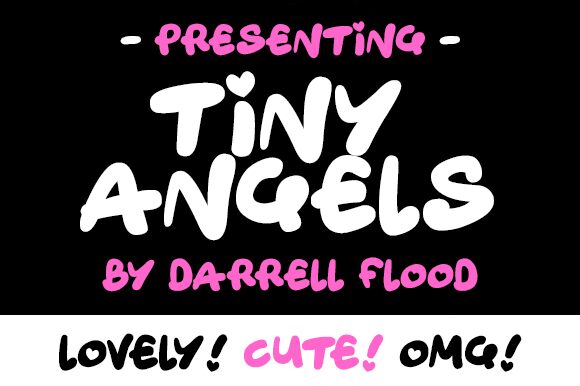
Tiny Angels
Tiny Angels, designed by Darrell Flood, is a bold, wide display font perfect for creating eye-catching posters and logos with a cartoon-style flair. It's suited for projects like greeting cards, comic books and more!